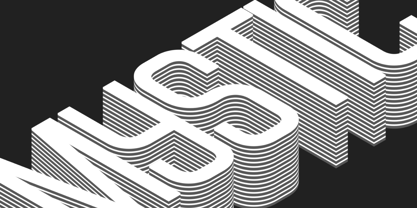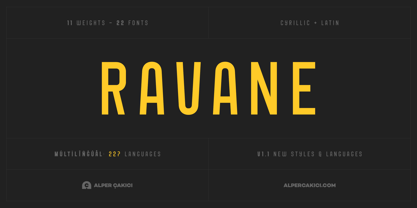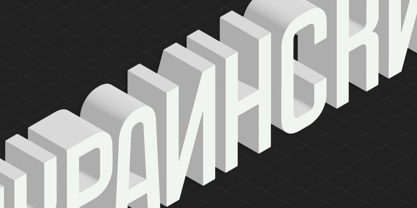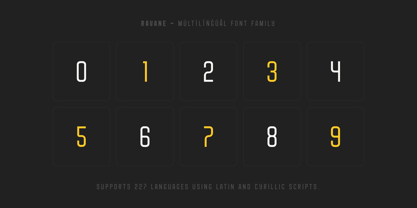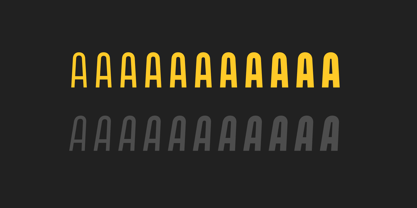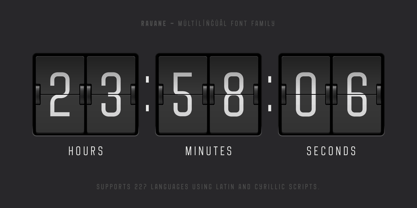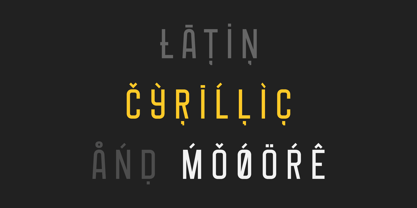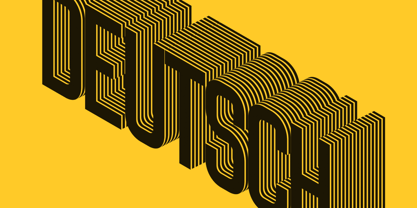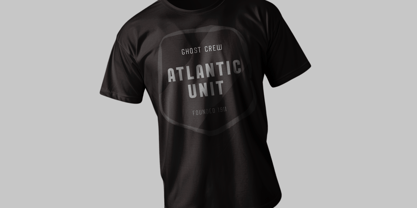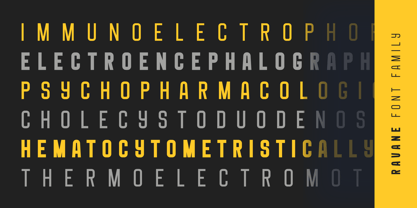
Ravane
The Ravane Font Family was designed by Alper Çakıcı and published by AlperCakici. Ravane contains 22 styles and family package options. More about this family
Ravane is a contemporary rounded sans serif typeface family crafted for clarity, warmth, and versatility. With 11 carefully tuned weights and 22 total fonts, it offers designers complete control — from delicate Thin to commanding UltraHeavy. Combining geometric precision with soft, approachable curves, Ravane balances professionalism with personality. Perfect for branding, editorial design, packaging, digital interfaces, and corporate identity, Ravane adapts seamlessly across modern design environments. Its clean geometry, smooth terminals, and refined proportions make it ideal for both print and screen — a dependable workhorse for global communication. Supporting 227 languages across Latin and Cyrillic scripts, Ravane ensures your message reaches audiences worldwide. Its multilingual coverage, elegant readability, and timeless minimalism make it a must-have font family for designers seeking sophistication and modern simplicity. From bold headlines to legible body text, Ravane isn’t just a typeface — it’s a complete rounded sans serif system built for today’s creative world.